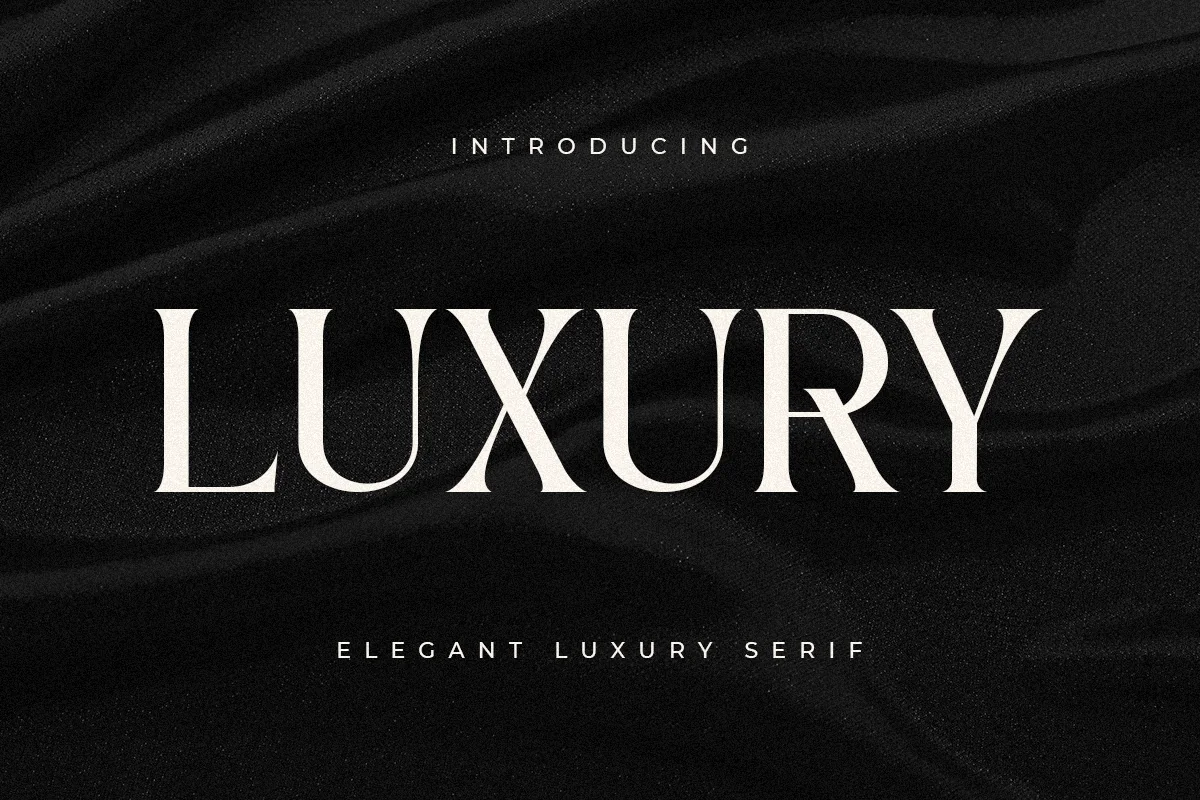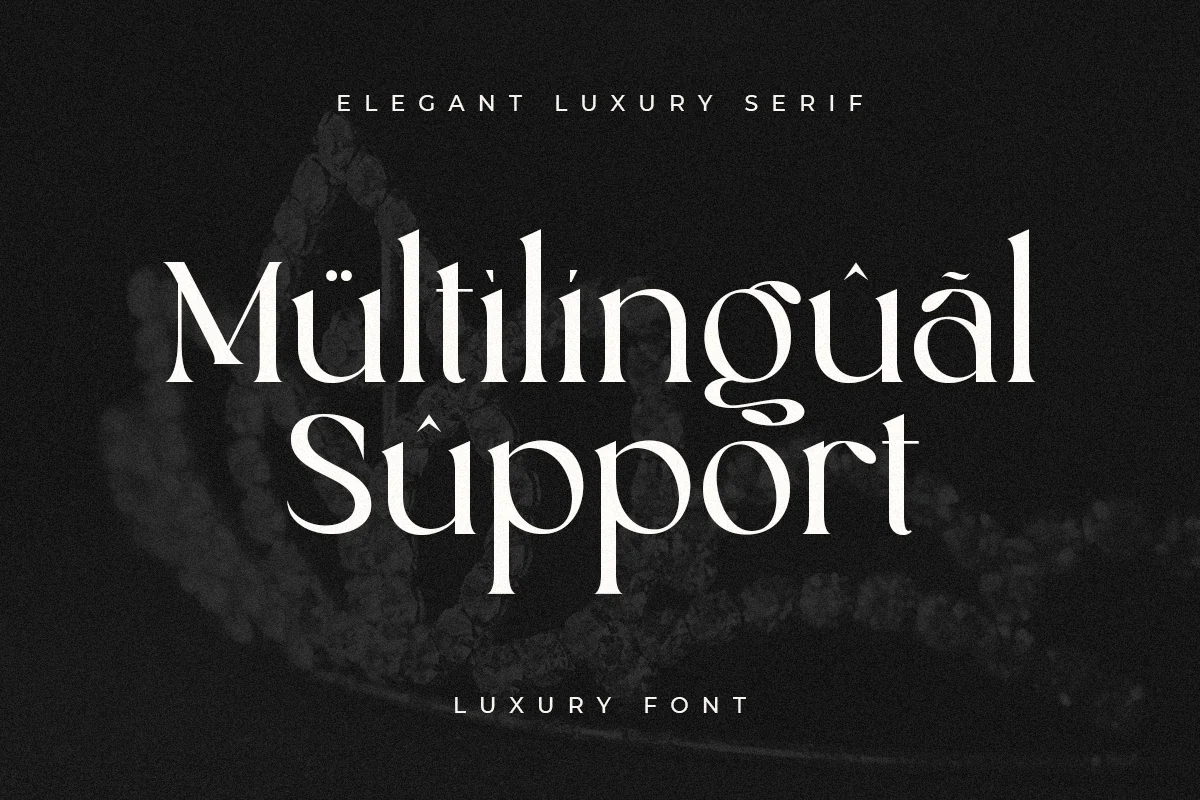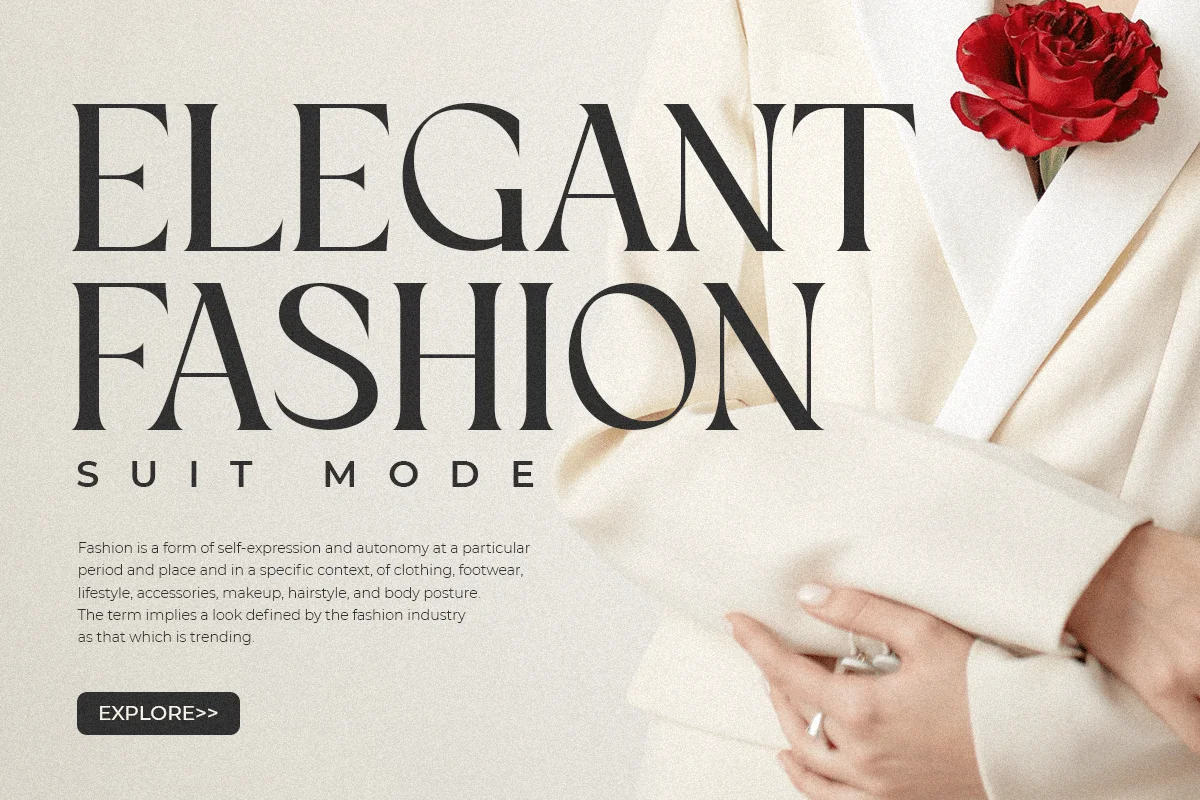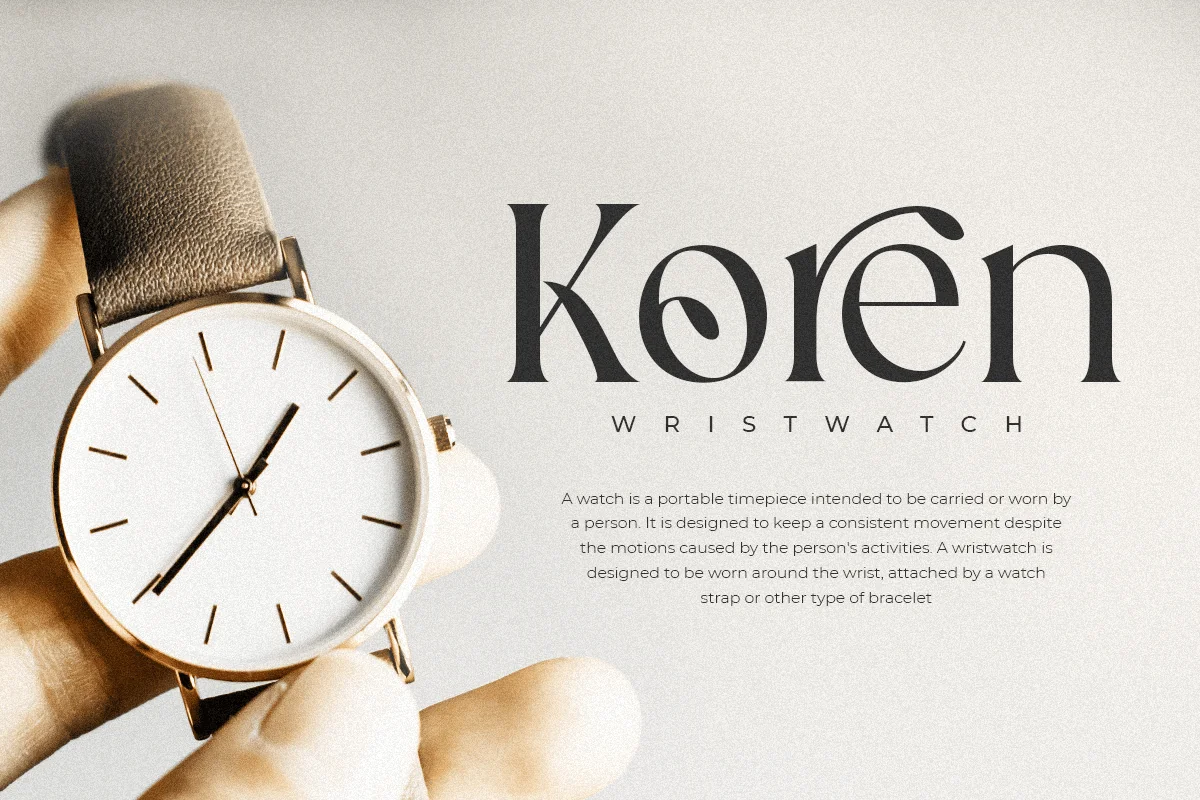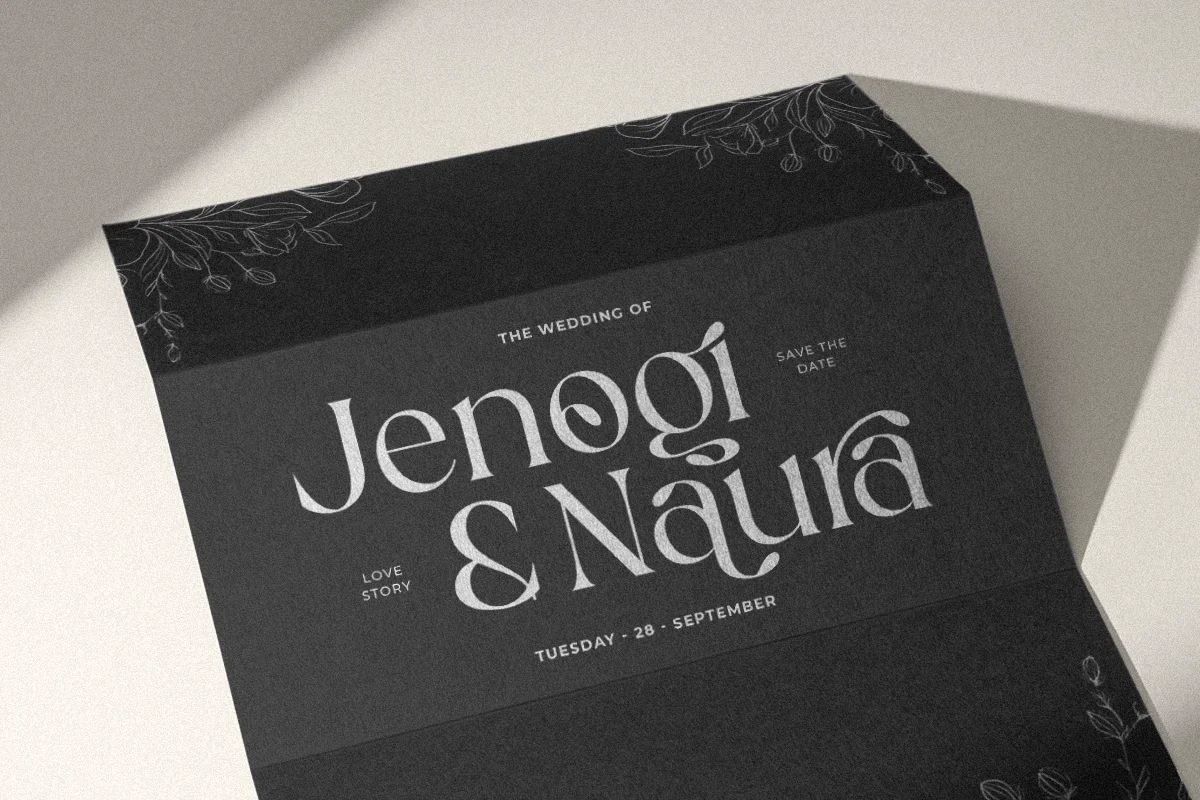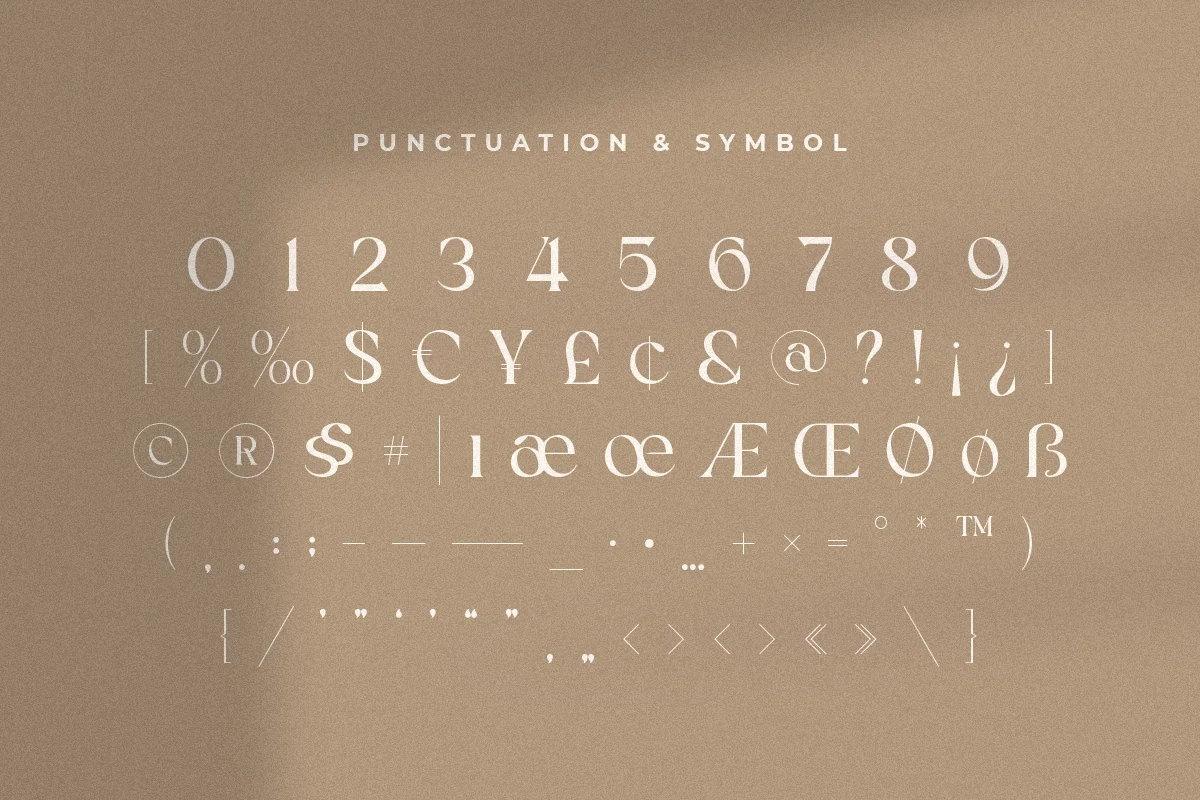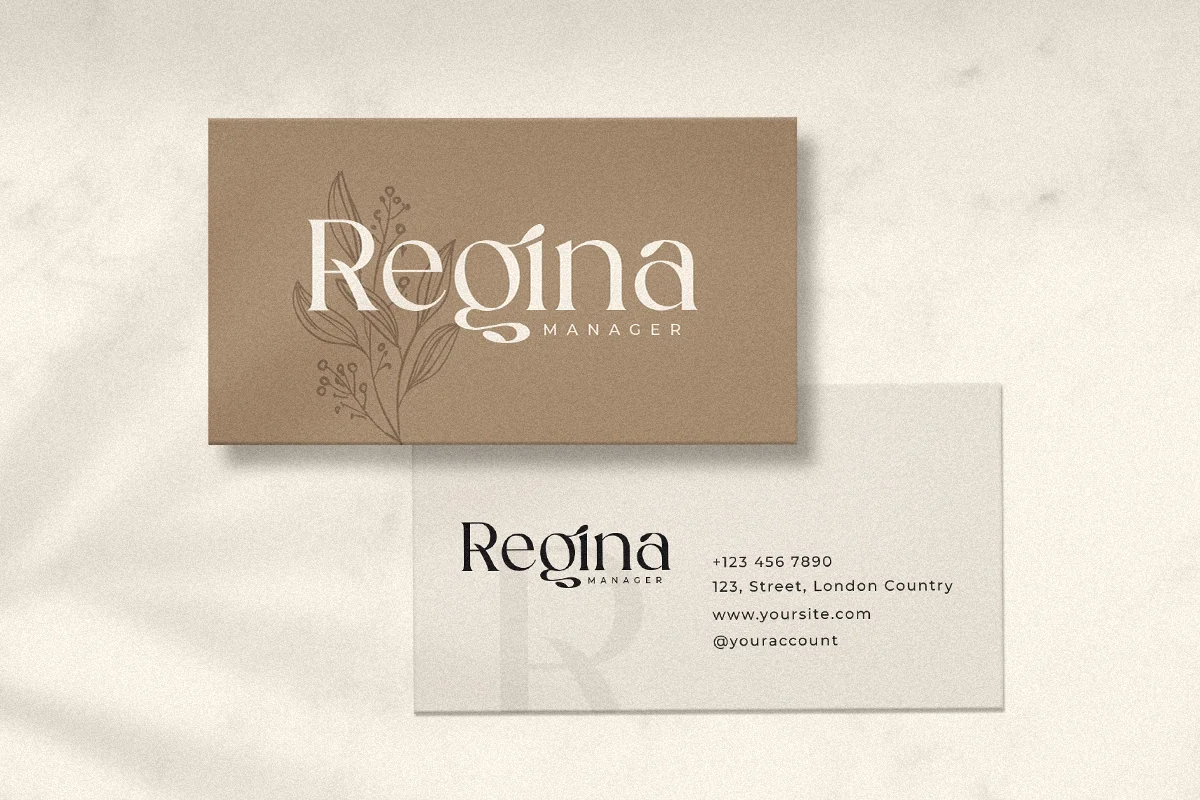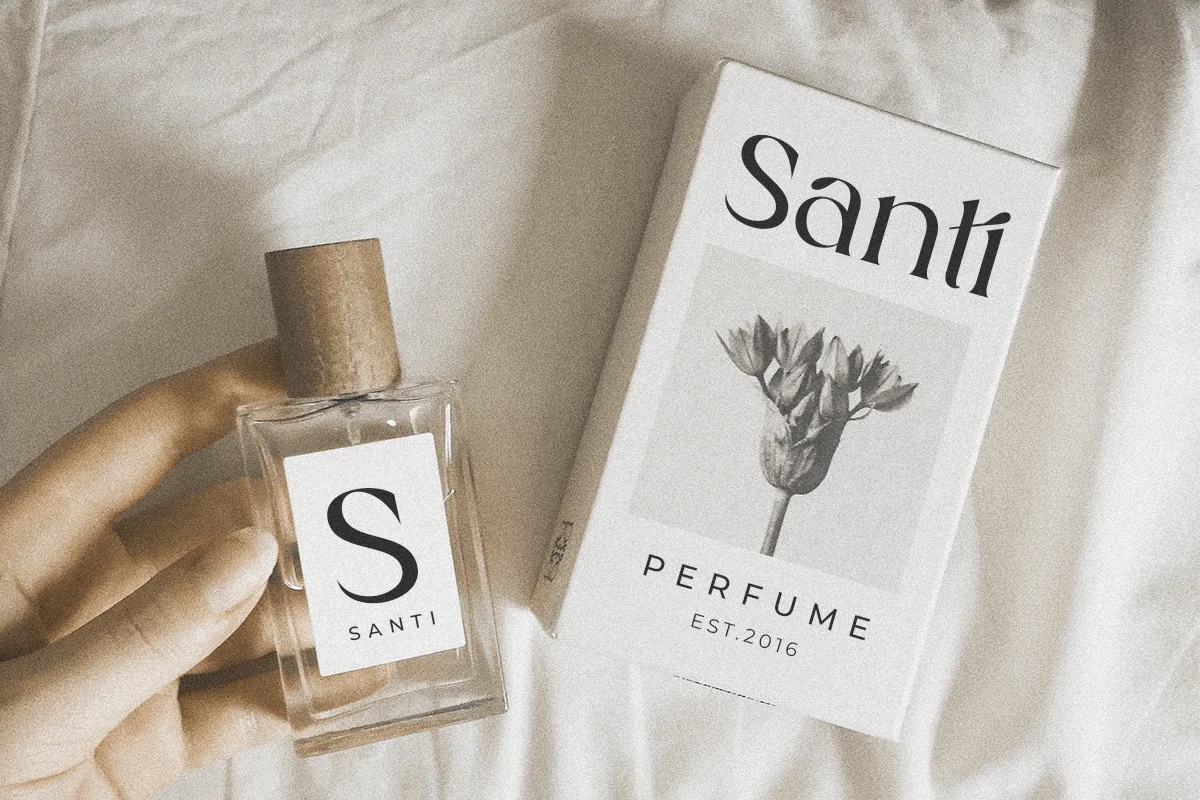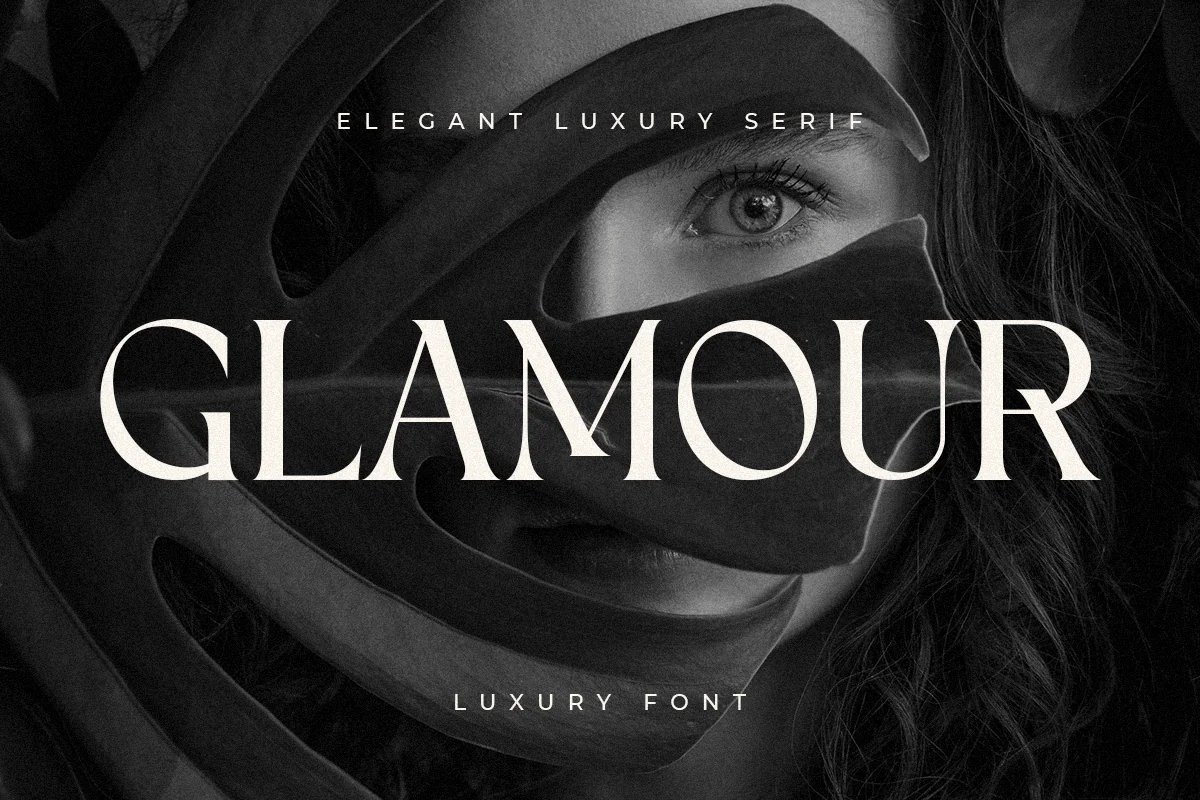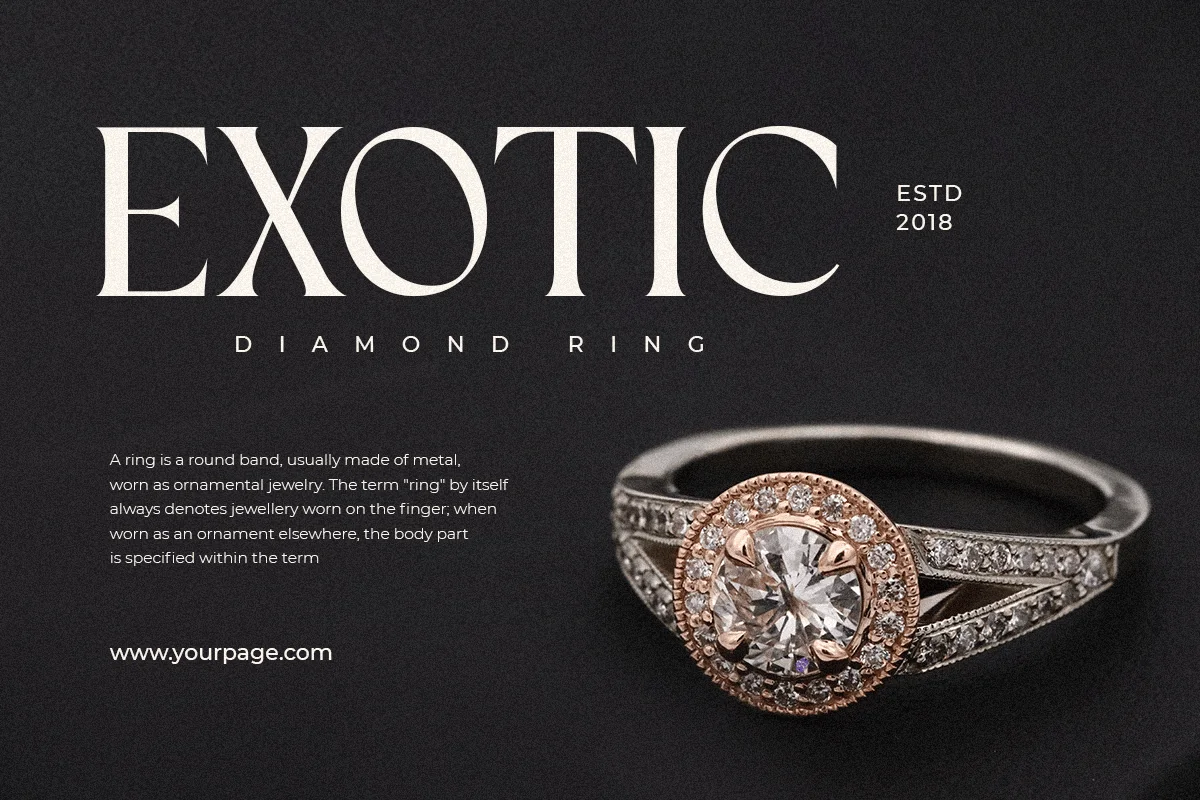
Luxury – Elegant Luxury Font
A Serif font that we created special for luxury branding needs, with extra ligature and alternates in unique shape will be ready to add value of your brand. It so nice to leverage designer or product owner that need solutions to make their design look more Luxury and modern. And specially for Luxury font, We prepared any ligatures, and any alternate characters to help you create unlimited variations for your creative needs.
Luxury Serif font ready with:
- Any options to get creative variations (combination of Alternate and Ligatures)
- Preview as a inspirations that you can do with Luxury font
- Ready with Lowercase and Uppercase characters